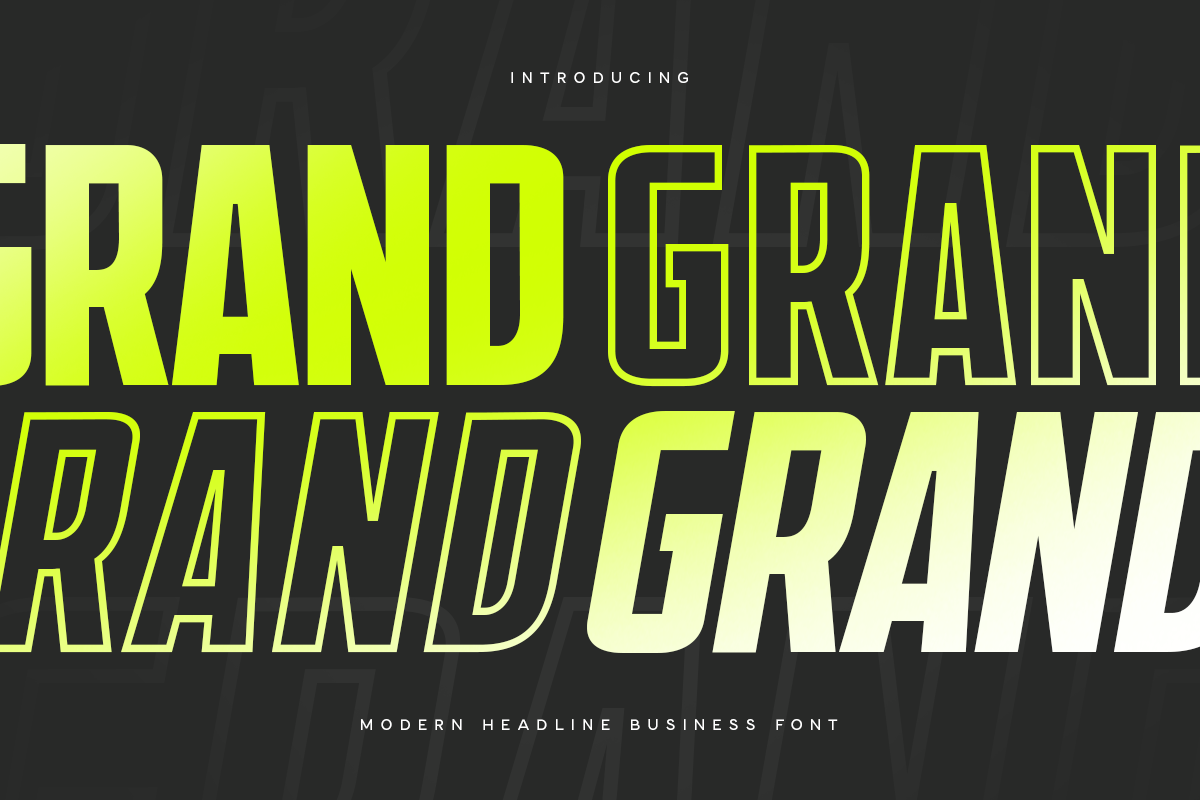
Grand – Headline Business Font Free Download is a bold and modern sans-serif typeface designed specifically for business headlines and impactful branding. Perfect for corporate websites, presentations, marketing materials, and advertisements, this font exudes professionalism and confidence.
With its strong, clean lines and highly legible design, Grand – Headline Business Font Free Download is ideal for grabbing attention and making a statement. Whether you're creating a business report, designing a product launch banner, or building a professional website, this font ensures your message is clear and memorable. Try it out in your next project to see how it enhances your design—then upgrade to a commercial license when you're ready to take your work live.